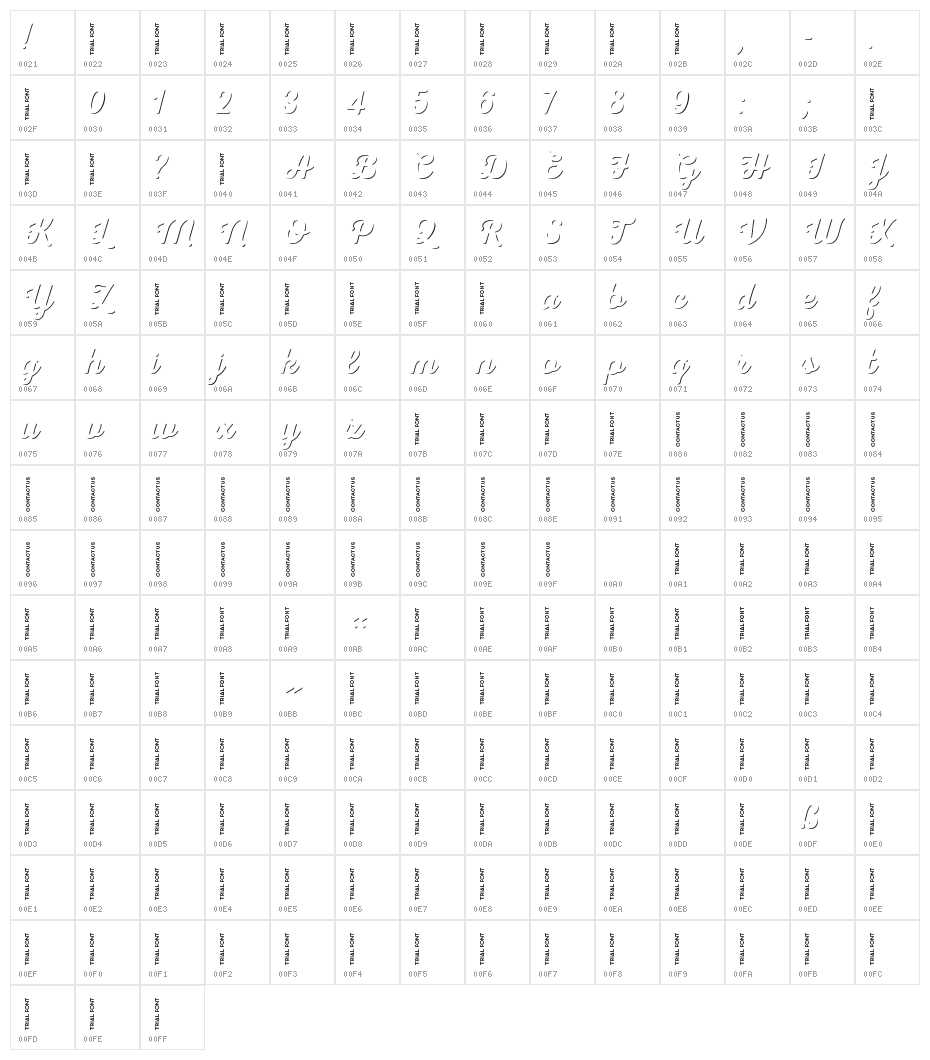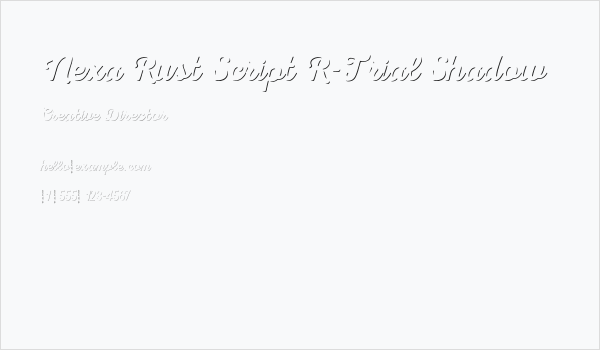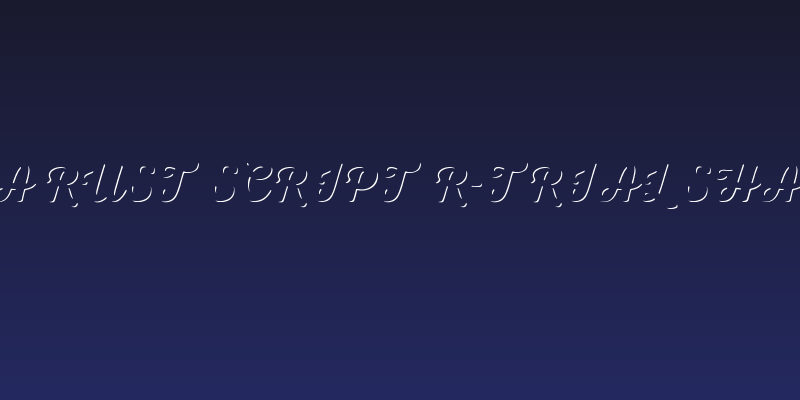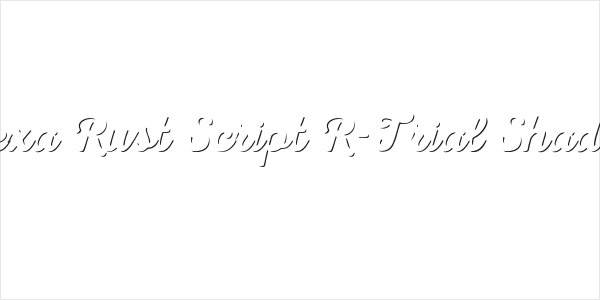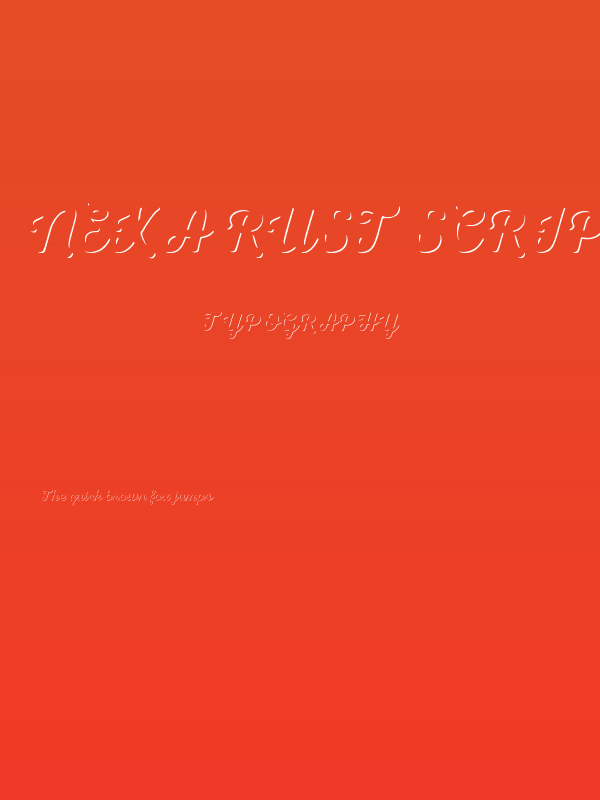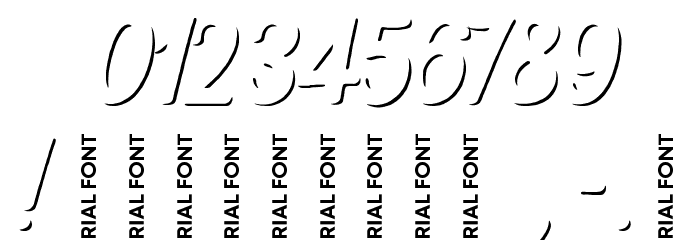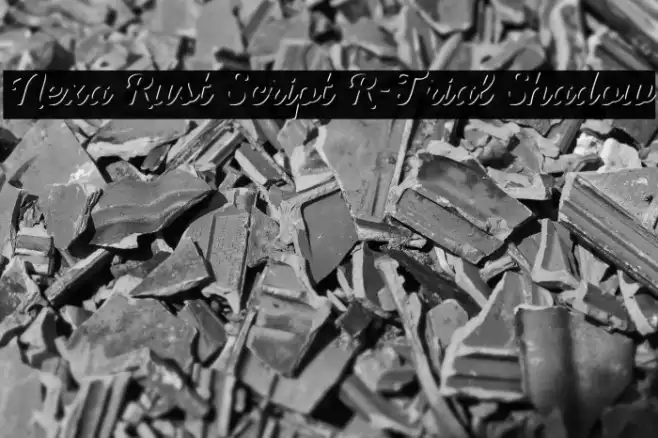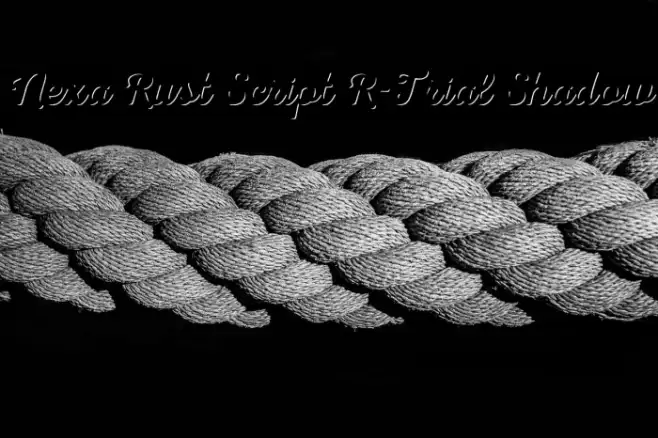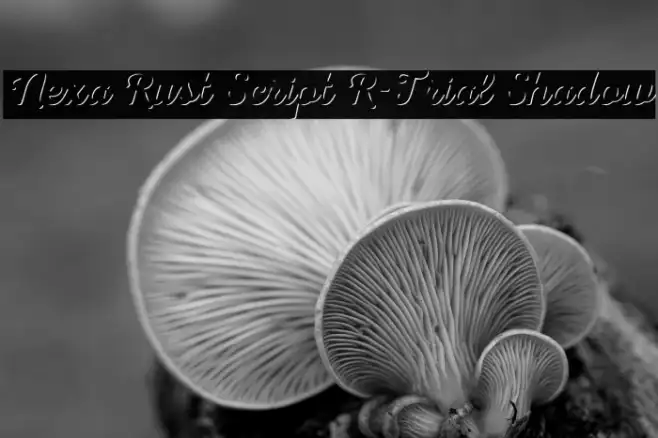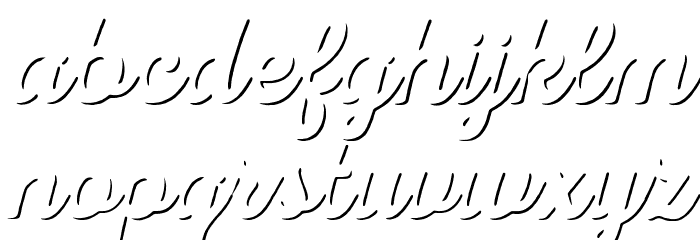
Nexa Rust Script R-Trial Shadow Font
Nexa Rust Script R-Trial Shadow Description
This font features a dynamic and energetic script style with a shadow effect that adds depth and dimension. The letters are connected, creating a fluid and continuous flow that is both elegant and playful. The uppercase letters are bold and prominent, while the lowercase letters maintain a consistent style with slightly exaggerated curves and loops. The numerals are clear and easy to read, matching the overall aesthetic of the font. Special characters are included, maintaining the same stylistic elements, making this font versatile for various design needs.
| Proposed Projects | Ideal for branding, invitations, greeting cards, and any project requiring a touch of elegance and creativity. |